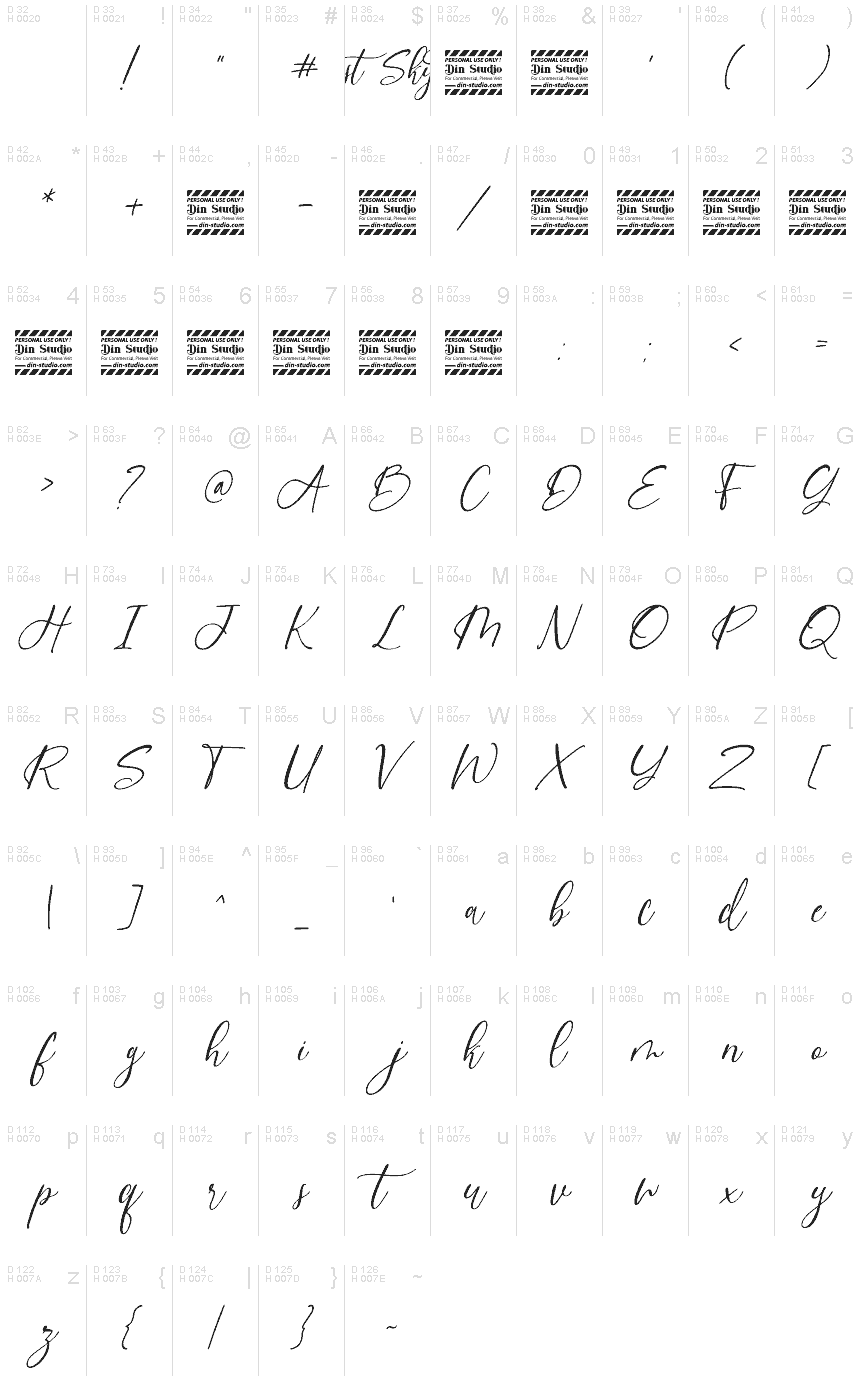
Honest Sky font by Nathatype captures the essence of elegance with its flowing, sophisticated design. This light handwritten font embodies a romantic and expressive touch, blending modern script elements with an artistic flair. Its gentle curves and delicate strokes create a visually pleasing experience that is both stylish and readable.
Perfect for wedding invitations, greeting cards, branding projects, social media graphics, and packaging design, this free handwritten font will add charm to posters, book covers, logos, business cards, blog headers, and more.